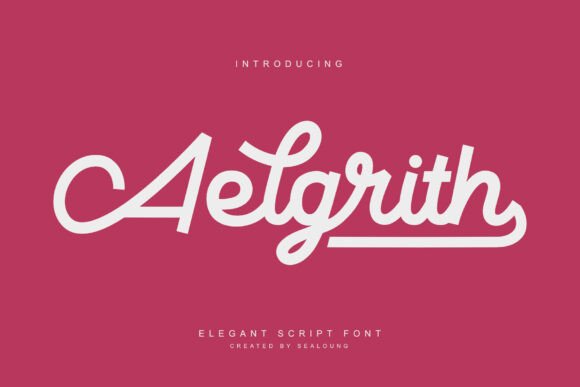
The Elegance of Aelgrith Font: Elevate Your Designs with Sophistication
Have you ever been in the midst of working on a project, only to find that it’s missing that special something? I recall a particular evening when I was crafting a wedding invitation for a client. The design was beautiful, but the font just wasn’t doing it justice. I spent hours scouring the internet for the perfect typeface, and then I stumbled upon Aelgrith. It was like a breath of fresh air – elegant, refined, and effortlessly sophisticated. In this article, we’ll dive into the world of Aelgrith Font and explore its features, uses, and alternatives.
An Honest Review of Aelgrith Font
• ✨ Elegant script font with refined strokes and graceful curves
• ✅ Over 300 unique glyphs for versatility and multilingual communication
• ✅ Stylistic alternates for personalized touches
• ✅ Perfect for logos, branding, and cover designs
While Aelgrith is an exceptional font, there are a few things to keep in mind:
• ⚠️ May not be suitable for body text due to its script nature
• 🤔 Can be overwhelming for beginners due to the vast number of glyphs and features
The Backstory of Aelgrith Font
Aelgrith was crafted with the intention of creating a typeface that embodies elegance and sophistication. Inspired by traditional calligraphy and modern digital design, Aelgrith’s creator aimed to produce a font that would be both versatile and refined. The result is a font that can be used in a variety of contexts, from logos and branding to wedding invitations and high-end product labels.
Font Name Aelgrith Font
Author Sealoung
Q: Can I use Aelgrith for body text?
A: While Aelgrith is an exceptional font, it may not be the best choice for body text due to its script nature. It’s better suited for headlines and titles.
Q: Is Aelgrith a multilingual font?
A: Yes, Aelgrith offers over 300 unique glyphs, making it suitable for multilingual communication.